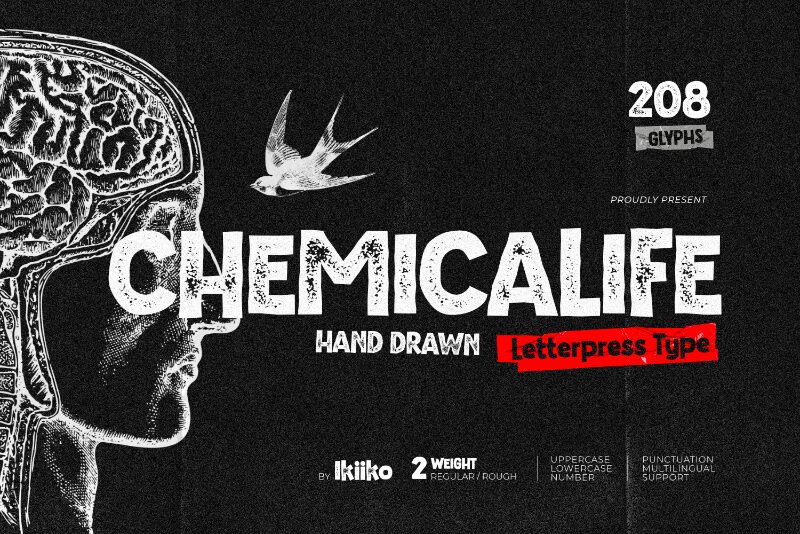
Chemicalife font by Ikiiko Type is a free bold cartoon display font. It stands out with soft, blobby strokes that feel poured rather than drawn-like ink puddles settling into chunky, high-contrast shapes. The curves wobble just enough to feel hand-made, while the weight stays steady, giving headlines a friendly thud and great legibility at big sizes.
Using Chemicalife, you get playful impact without chaos-great for kids’ packaging, science fair posters, toy logos, slime or soap branding, YouTube thumbnails, event flyers, and sticker sheets. This free font shines when set big with a touch of extra letterspacing. Pair it with a clean geometric sans for body copy to keep the bubbly energy anchored.
Chemicalife DEMO — Schriftpräsentation